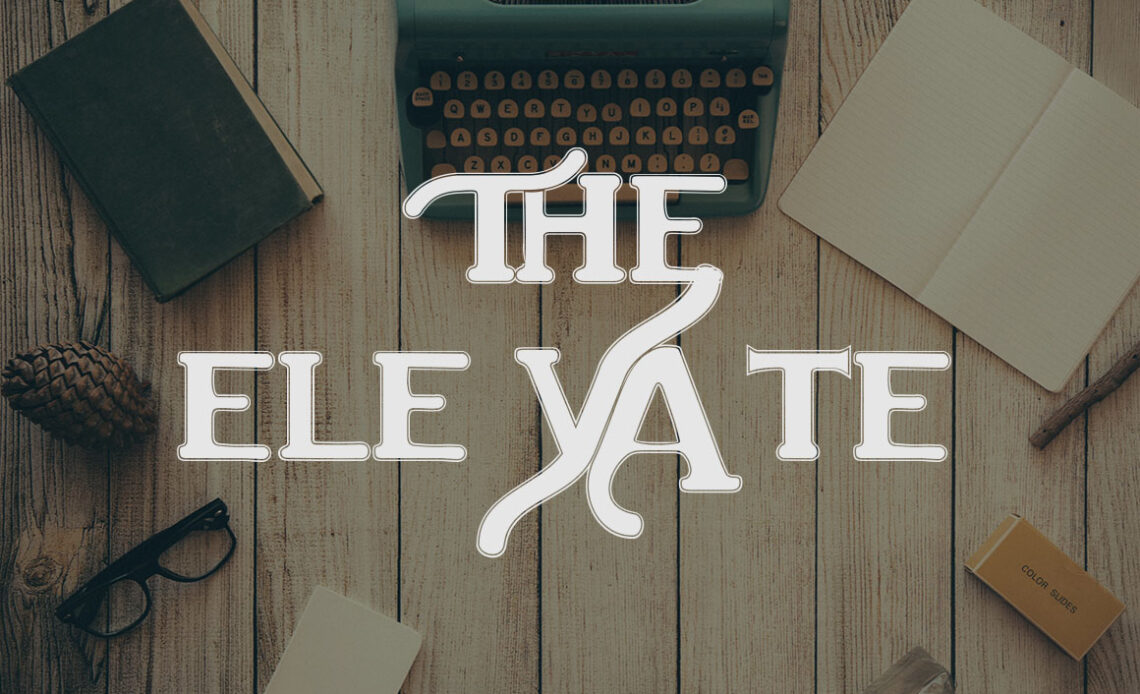
Behold, The Elevate Font - the unchained guardian of your creative visions. Prepare for a paradigm shift in your design projects as you harness the limitless potential of this font family. Captivating, versatile, and armed with a spectacular range of styles, The Elevate is your envoy to a world of awe-inspiring visual masterpieces. Time to rewrite the rules, to step beyond the mundane, and create designs that etch themselves onto the hearts and minds of your audience. Let The Elevate Font be your muse, your magic wand, your ally in the realm of aesthetic triumph.
Step into a realm of possibilities with The Elevate Font - a display family adorned with a kaleidoscope of styles, each wielding its own unique charm. Let your creativity run wild as you discover a treasure trove of weights, ranging from the regal elegance of Bold to the delicate finesse of Thin. Experience the dance of contrast as you pair the commanding presence of Black with the airy grace of Light, and behold the magic of your designs blossom. Whether you seek to craft ethereal logos, captivate your readers with striking headlines, or enchant your audience with spellbinding invitations, The Elevate Font is your loyal companion, guiding you towards brilliance.
Unleash the power of The Elevate Font and witness the transformation of your creations. Watch as ordinary text metamorphizes into an orchestra of visual harmony, each character a brushstroke in the grand masterpiece of your imagination. Bask in the admiration of your audience as they marvel at the sophistication and allure of your designs. The Elevate Font is more than just a tool; it's a catalyst for greatness, an open door to a world where design knows no bounds. Embark on this creative odyssey today and let The Elevate Font ignite the flame of your artistic genius.